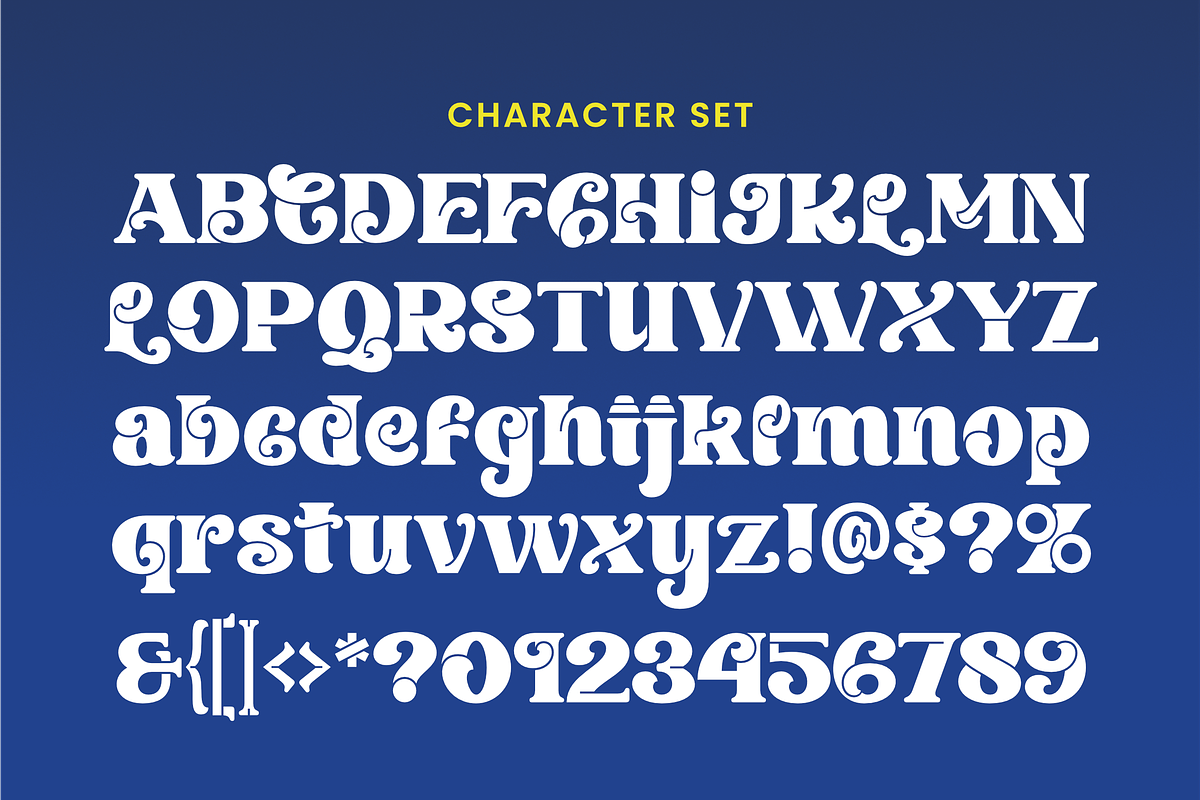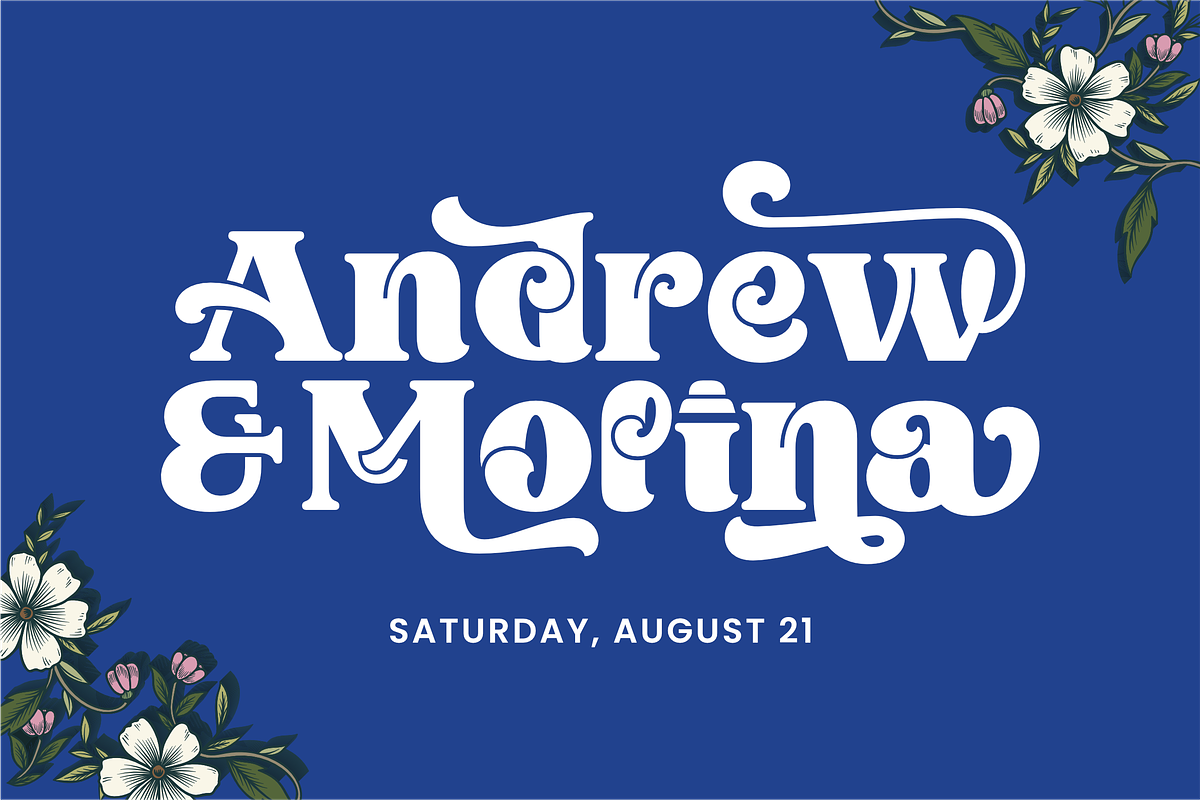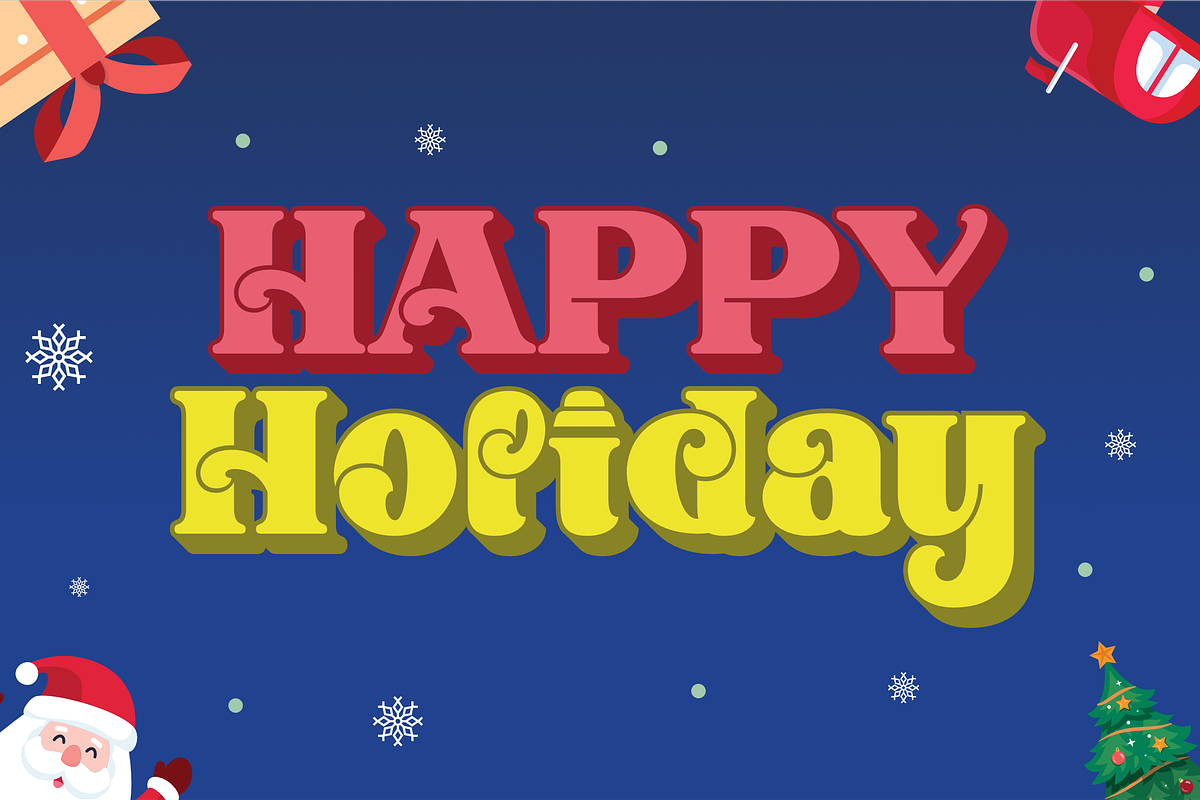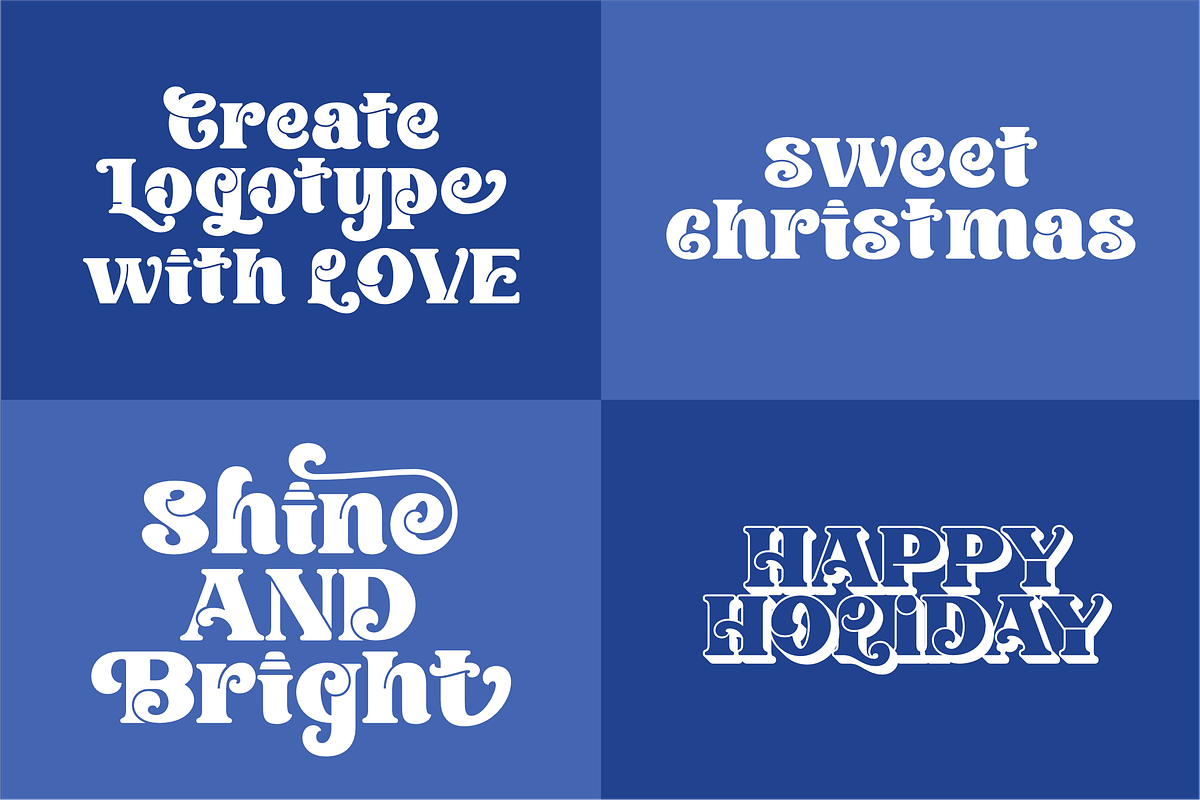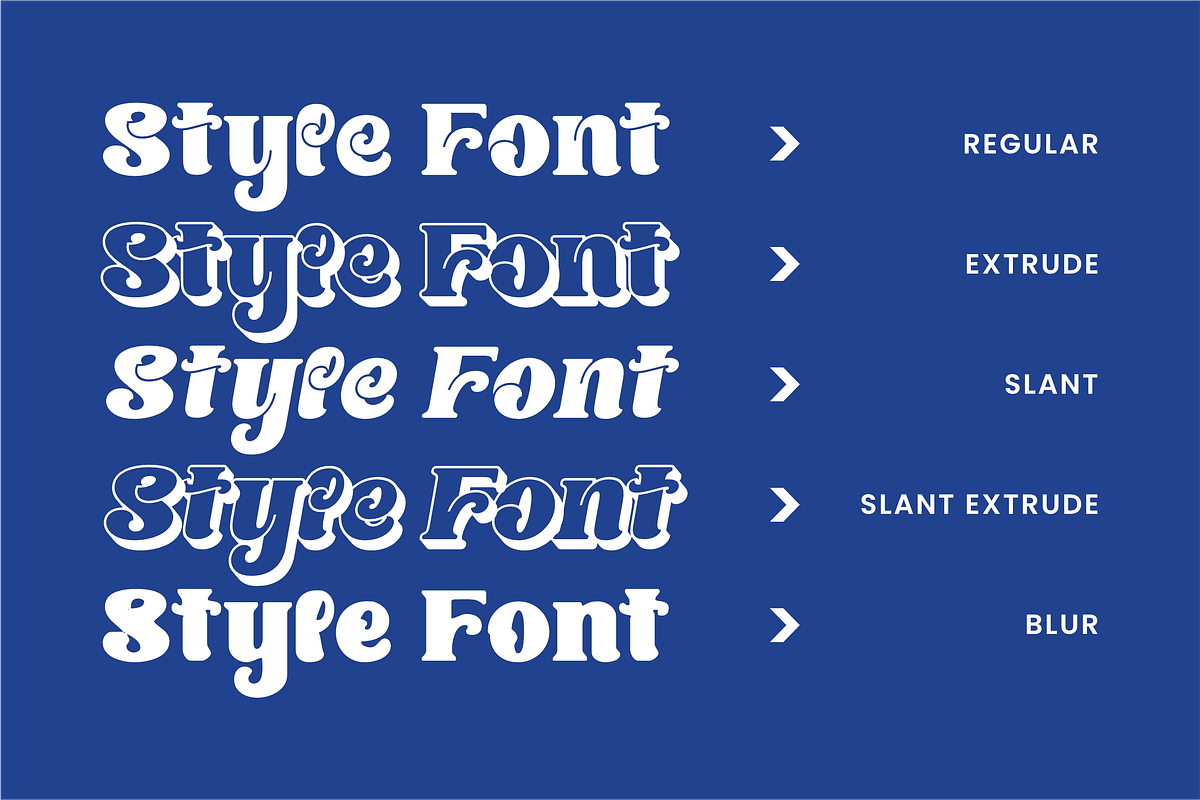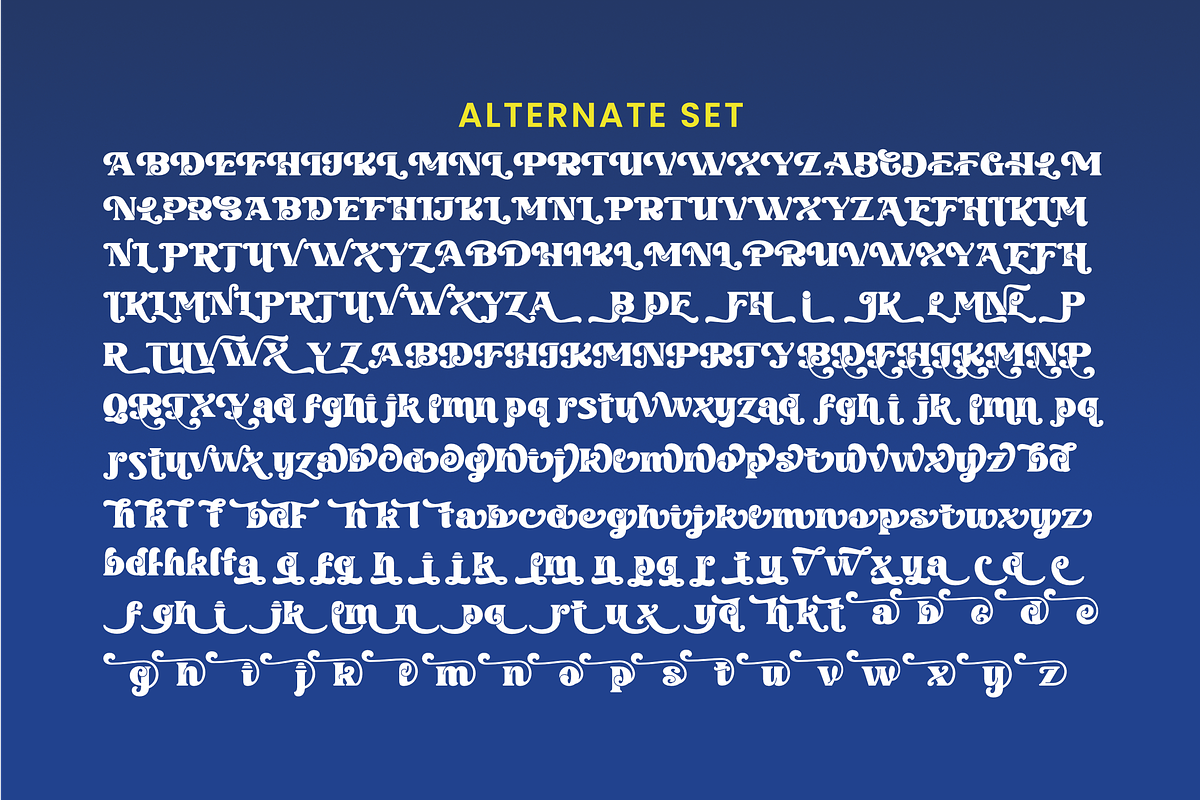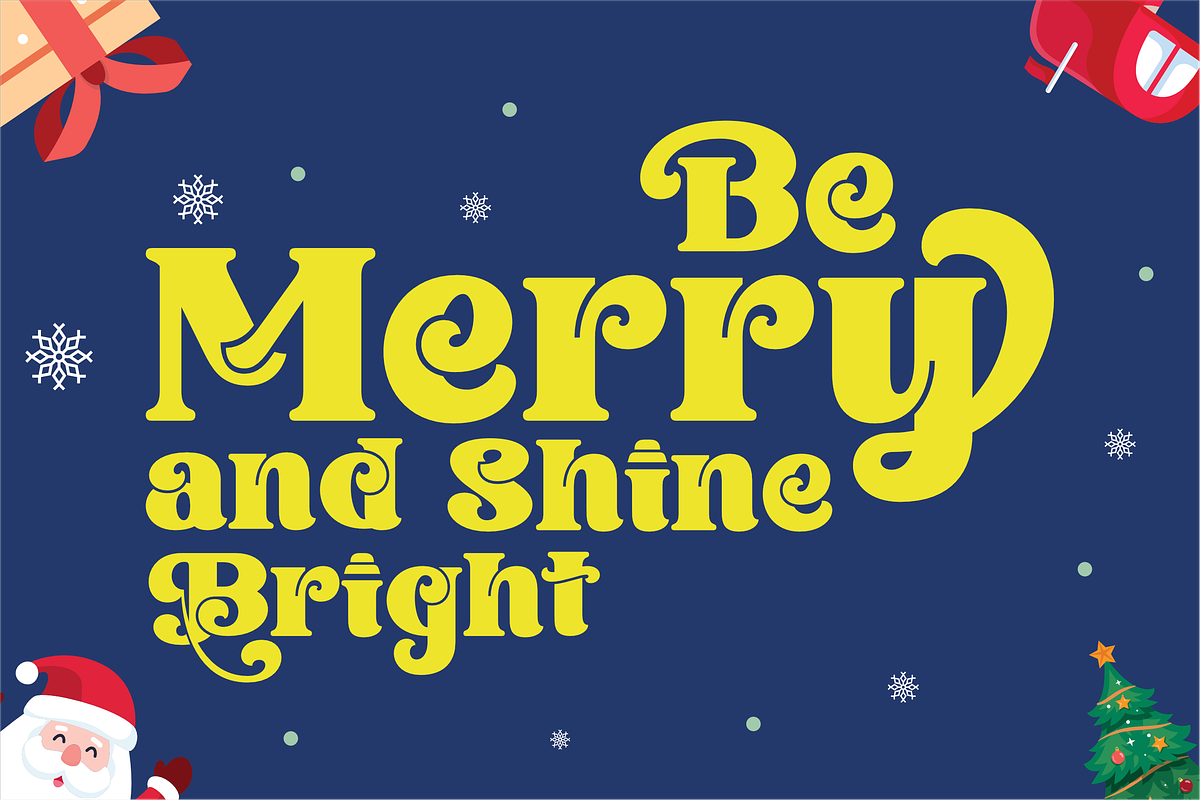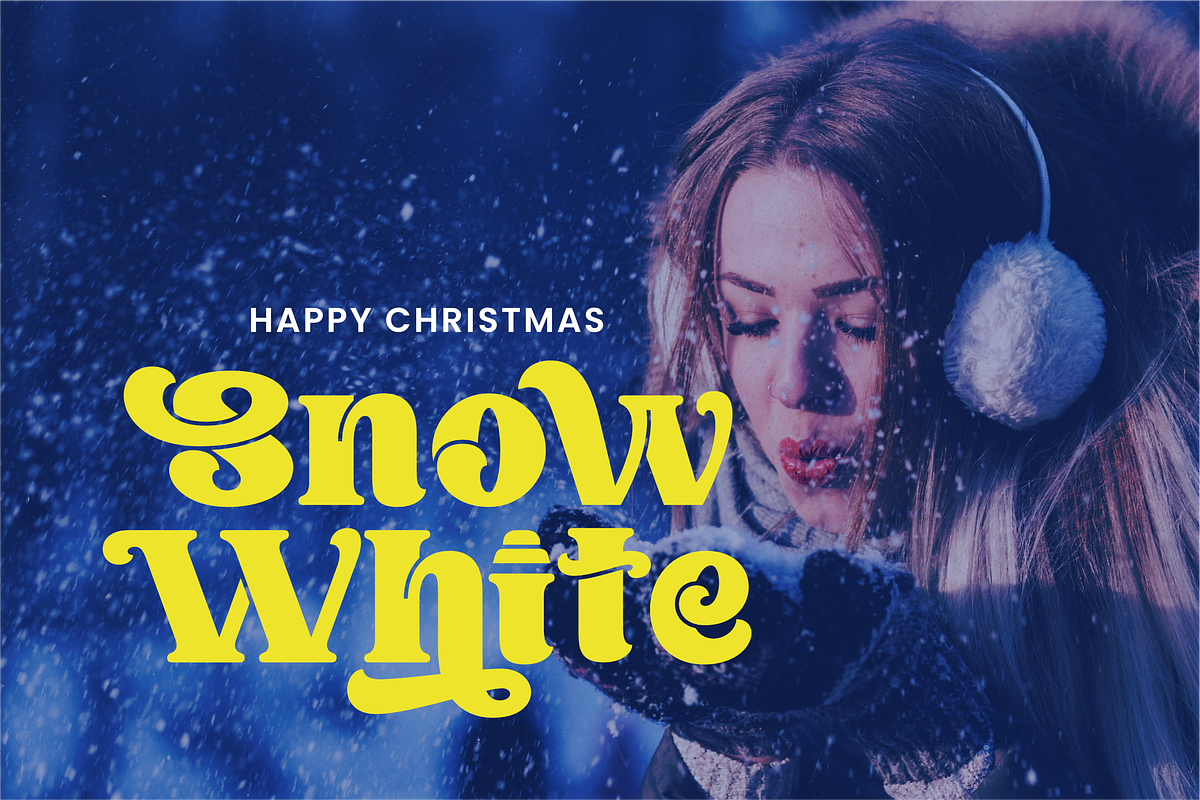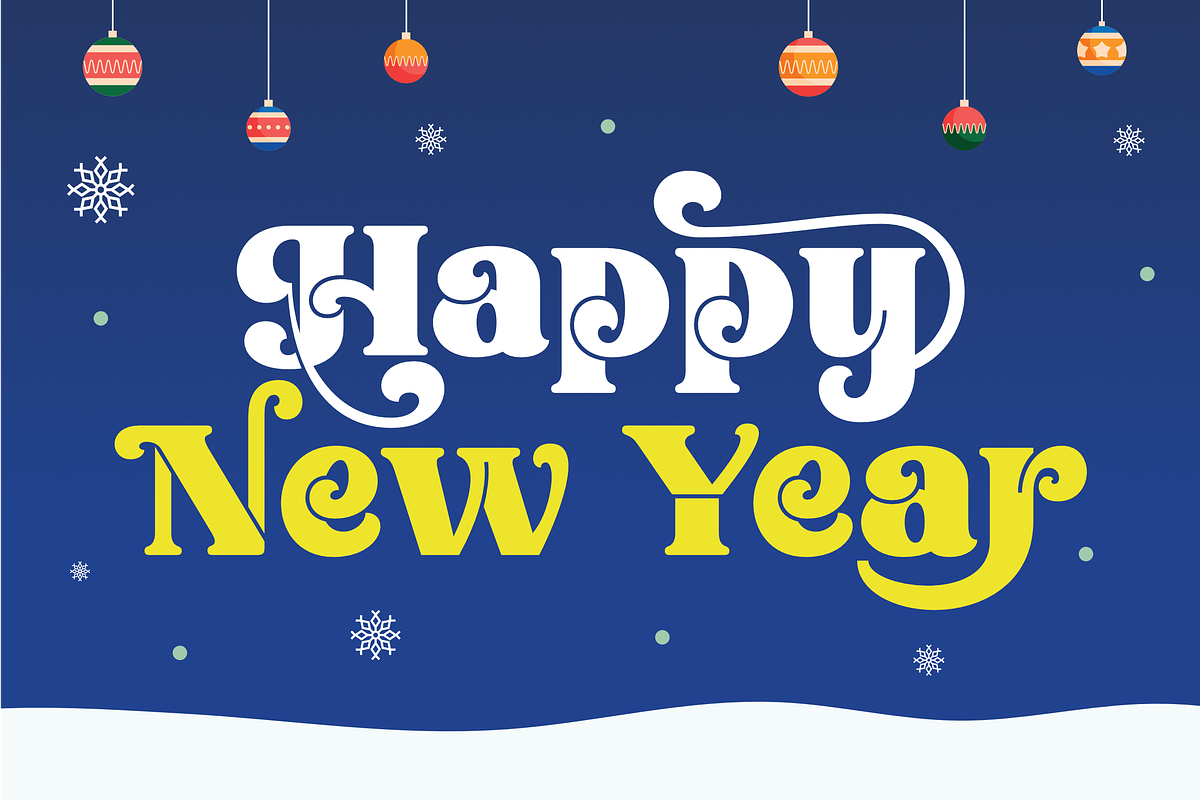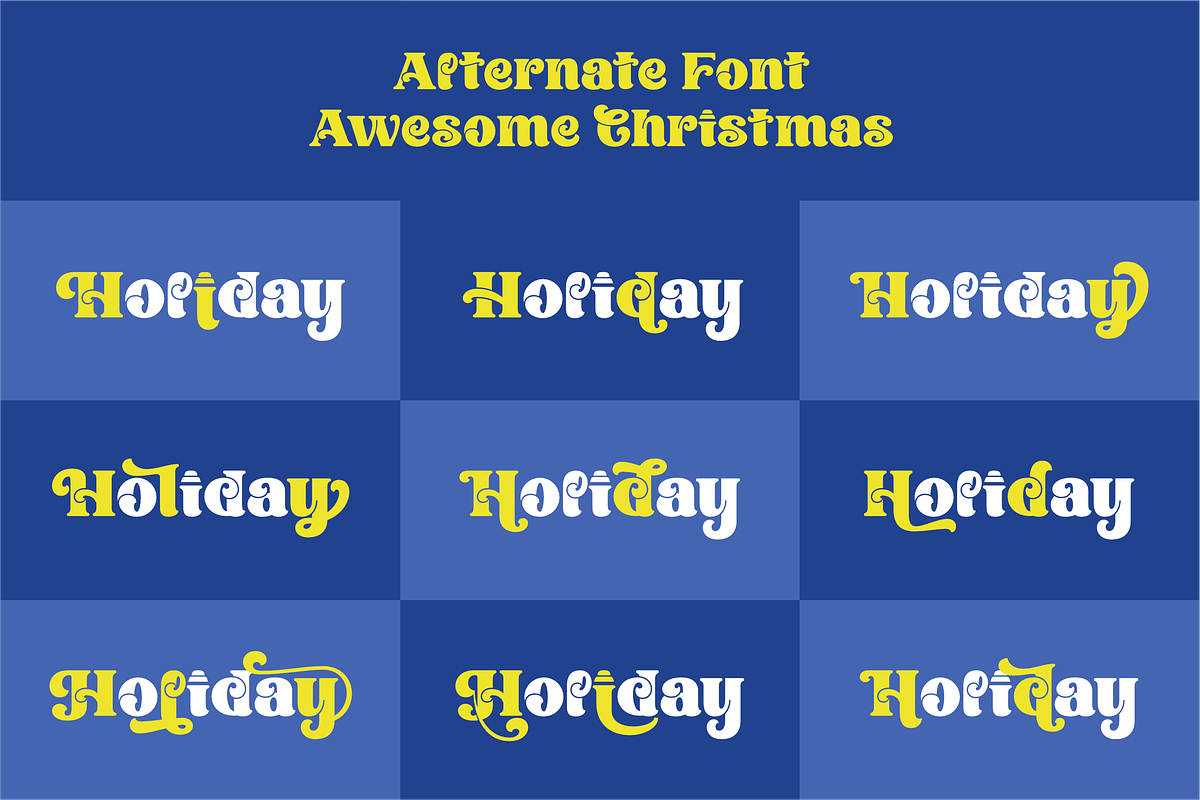
Awesome Christmas
Awesome Christmas is charming display font features a bold, rounded design with intricate flourishes and swashes. Its vintage-inspired aesthetic is perfect for creating eye-catching Christmas and holiday-themed designs. The font’s friendly and inviting character makes it ideal for use on a variety of projects, from greeting cards and invitations to posters and social media graphics.